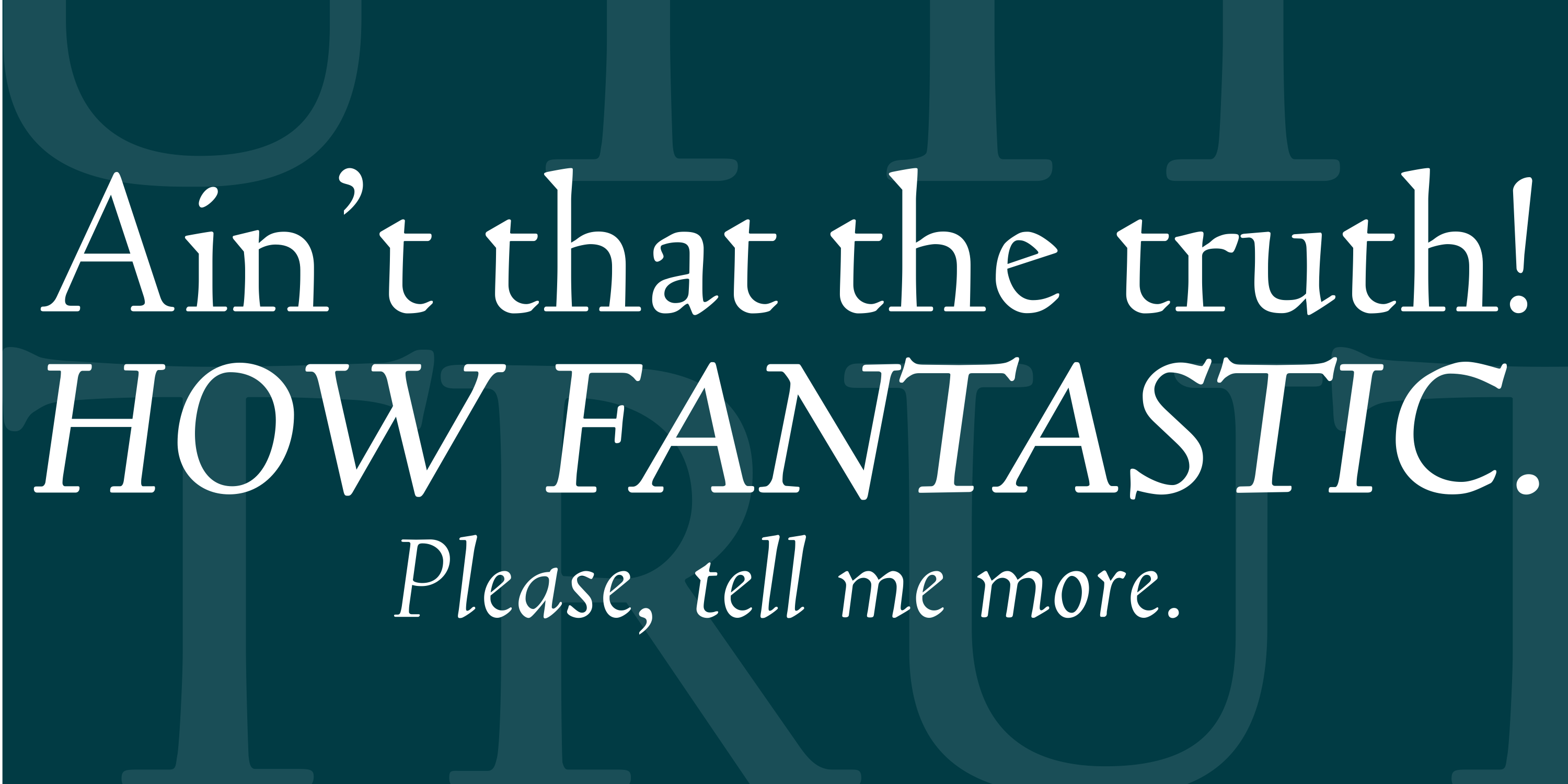
Truesdell Font excels in various design applications including authentic branding, traditional signage, heritage company logos, honest advertising campaigns, trustworthy business materials, genuine product packaging, reliable service communications, and sincere editorial designs. This honest typeface adapts perfectly to both dependable digital platforms and authentic print materials, making it ideal for designers seeking truthfulness and genuine character in their visual communications.
Truesdell Font generates excitement among design professionals due to its truthful character and genuine styling that instantly conveys honesty and reliable authenticity. The font's straightforward letterforms and trustworthy proportions create an immediate sense of sincerity and dependable quality. Its honest personality makes it particularly appealing for brands wanting to communicate integrity, reliability, and genuine values in their visual identity.
The Truesdell Font family encompasses multiple weights and styles including Regular, Bold, Light, Medium, and Condensed variations. Each family member maintains authentic design principles while offering distinct trustworthy characteristics. The Light weight provides gentle honesty for sincere applications, while the Bold version delivers strong impact for reliable headlines and authentic brand statements.
Trustworthy designers frequently choose Truesdell Font Free Download for projects requiring both genuine authenticity and brand credibility. This typeface demonstrates remarkable effectiveness across service industries including financial institutions, healthcare providers, legal services, and family businesses. Its truthful character allows organizations to communicate integrity while maintaining excellent readability and honest visual appeal that builds trust and establishes genuine connections with audiences.